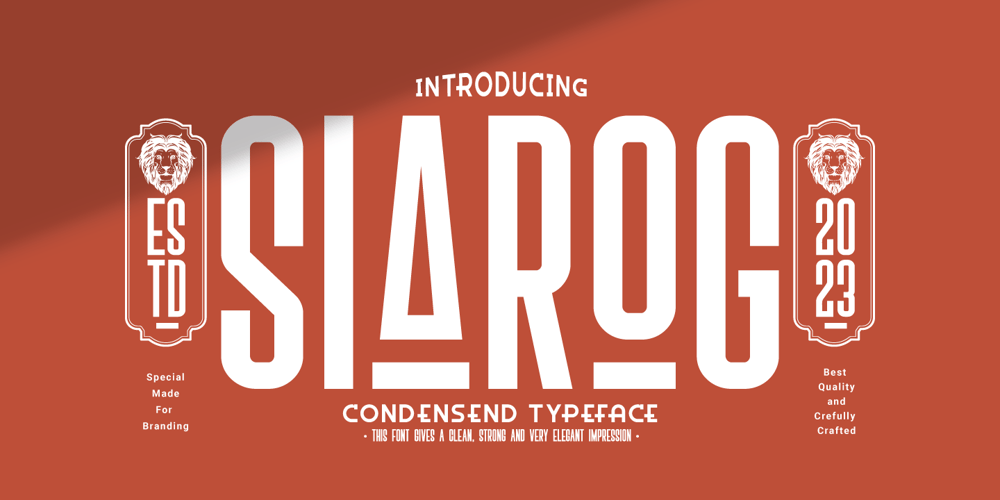
Siarog
Siarog font
Siarog Font Family was designed by Ari Juanda and published by Linecreative. Siarog contains 1 styles and family package options. Looks simple and powerful. This is the reason why we want to offer you the Siarog font. This font gives off a clean, powerful and very elegant feel. This font is perfect for use in headlines, posters, branding, titles, and other graphic designs.What you get dear, you will get :Siarog- A clean San serif font including Upper & Lowercase characters(ALL CAPS),Stylistic alternates Character (11 Character)Supports Multi linguage (Latin Western Europe), Numbers and Punctuation